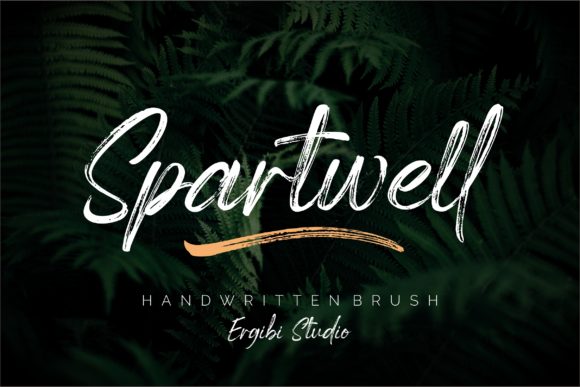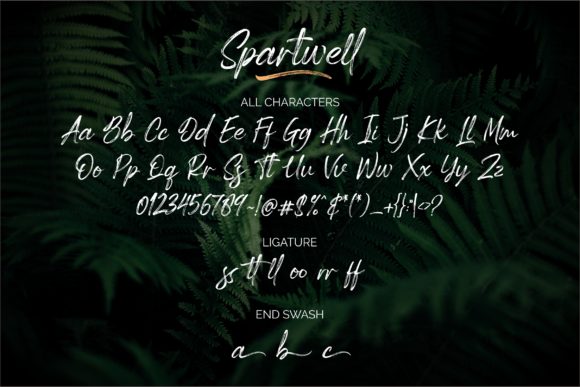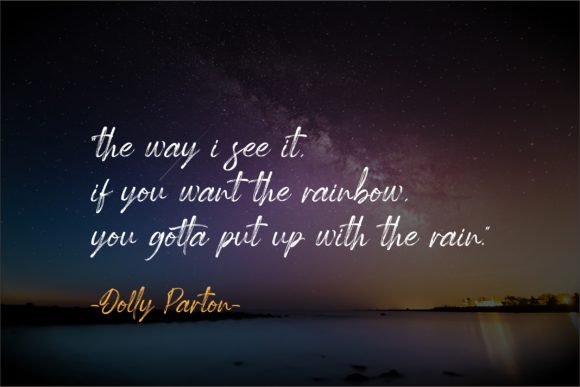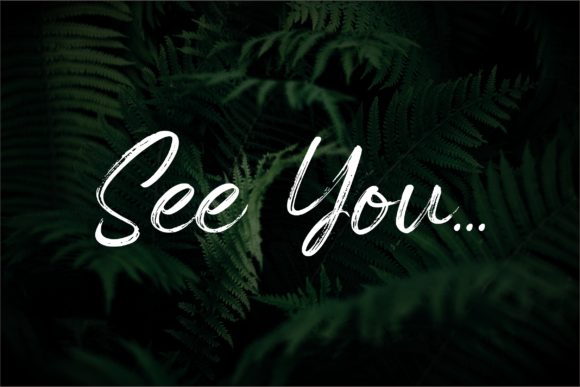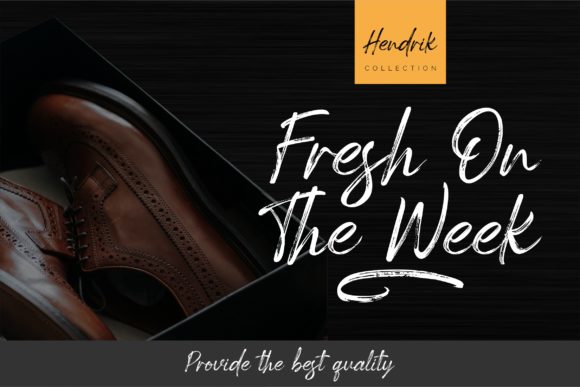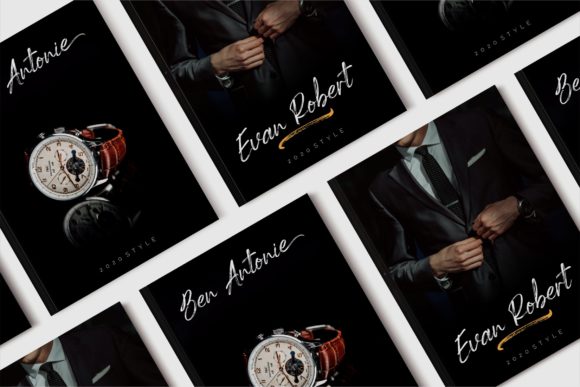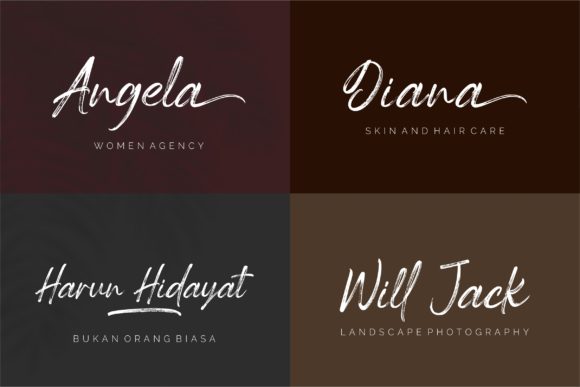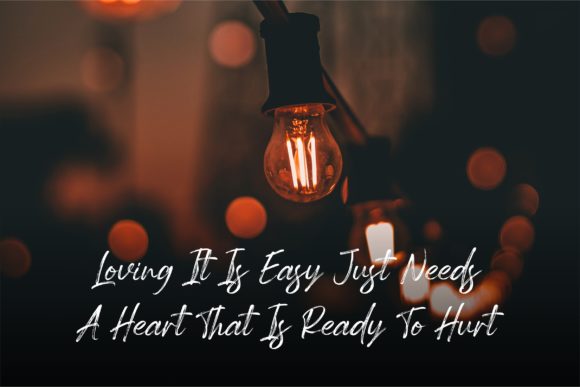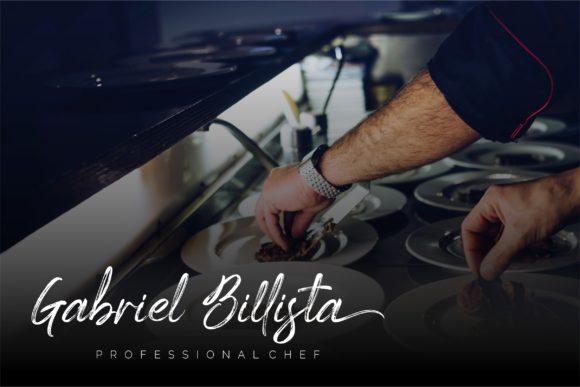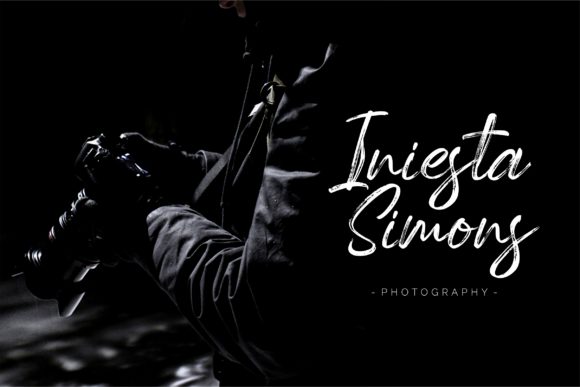
Spartwell Font
Spartwell is a gorgeous handwritten font, created with the help of a brush pen. This font is PUA encoded which means you can access all of the glyphs and swashes with ease! It features a varying baseline, smooth lines, gorgeous glyphs and stunning alternates. Fall in love with Spartwell’s incredibly distinct and timeless style and use it to create spectacular designs!